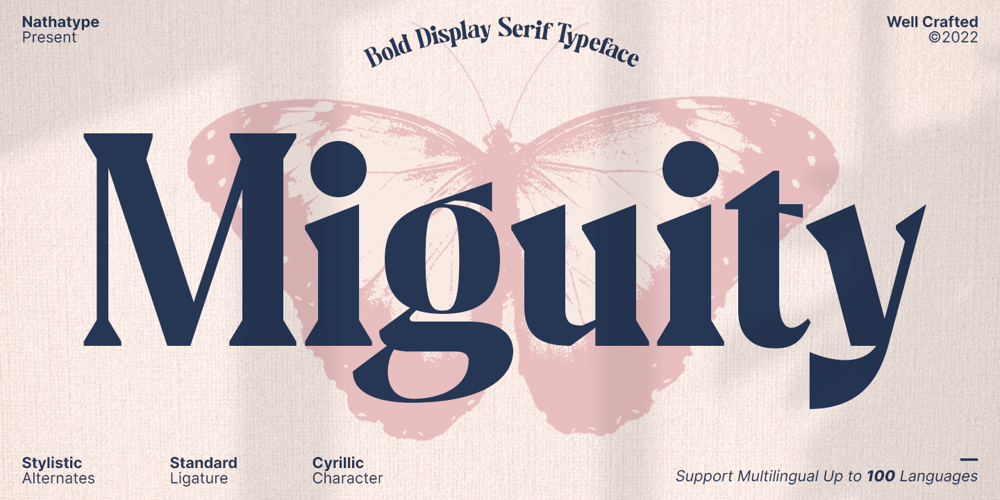
Miguity
Miguity font
Miguity Font Family was designed by Donis Miftahudin and published by Nathatype. Miguity contains 1 styles and family package options. Miguity is a display serif font in thick volumes designed to leave professional, formal, lovely impressions. This font’s character is the hook on the final corners of each letter. Plus, some of the letters show swinging wipes on their edges. It surely eases the eyes to explore the text to add its readability.Features: Ligatures Stylistic Sets Multilingual Supports PUA Encoded Numerals and Punctuations You can use Miguity on various designs, for example the posters, banners, logos, magazine covers, quotes, name cards, headings, printed products, merchandises: social media, and so on. Find out how to use this font by watching the font preview.Hopefully you have great experience using this font. Feel free to contact us if you require more information when you are experiencing a problem. Thank you. Happy designing.